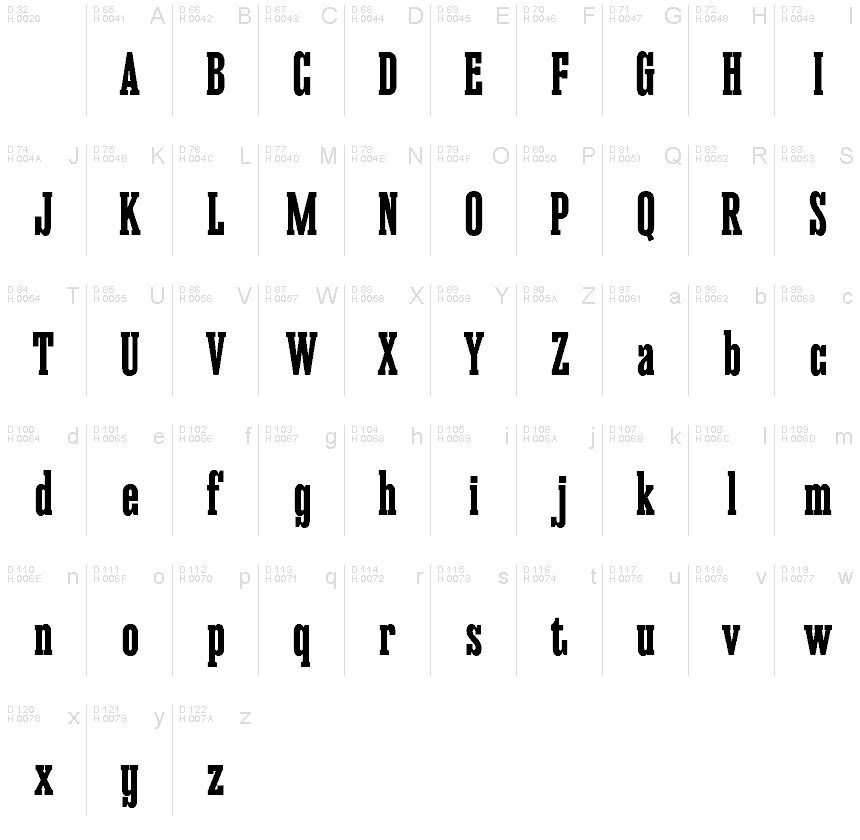
CS Courage Regular Demo
CS Courage font is a gift from Craft Supply Co., a condensed serif font with strong serif presence, geometric structure, and vintage influences. All these traits combine for an authoritative tone that meets modern application potential. Rounded corners add lightness to this unusual yet professional piece of design.
Decorate posters, covers, packaging boxes, and bags where CS Courage will also be ideal for custom book covers or art where there are almost no limitations with applying! Other use cases include labels and stickers both printed or produced digitally.